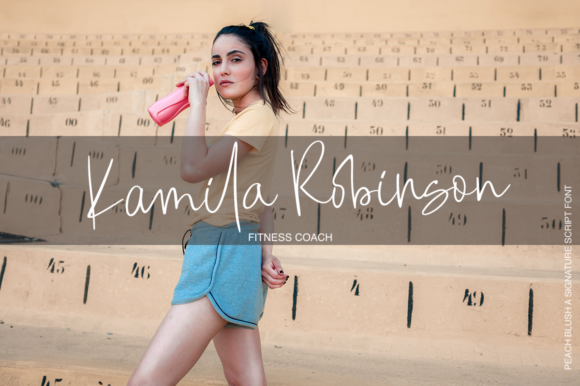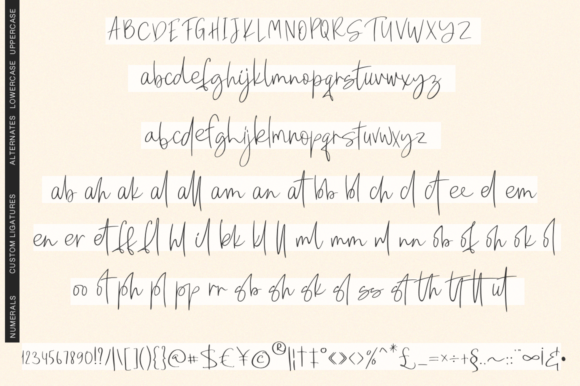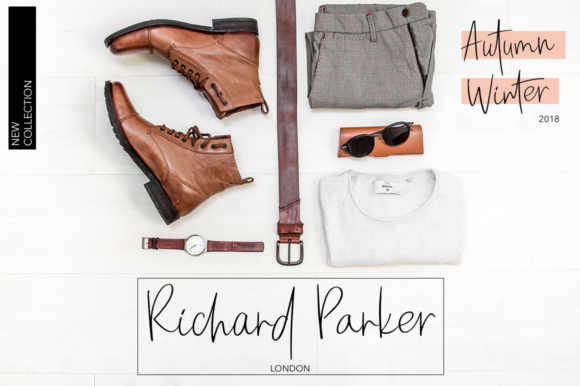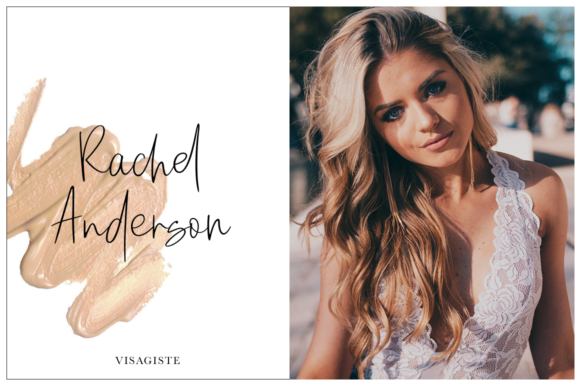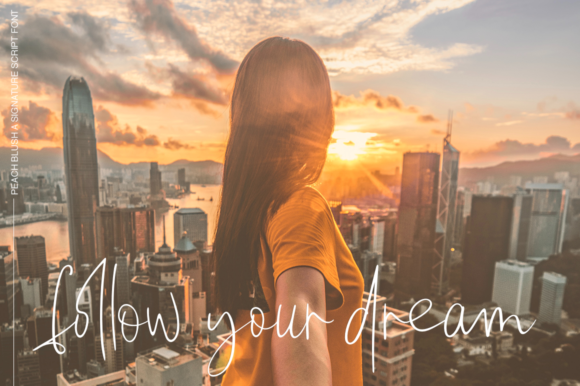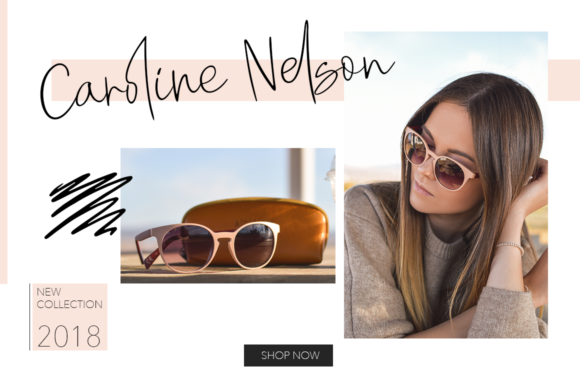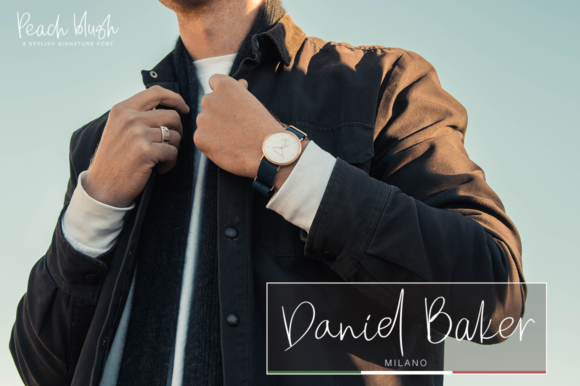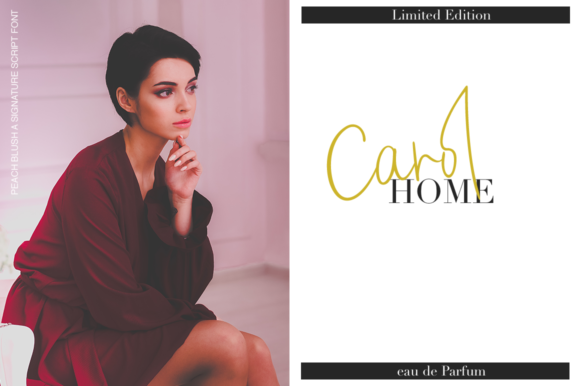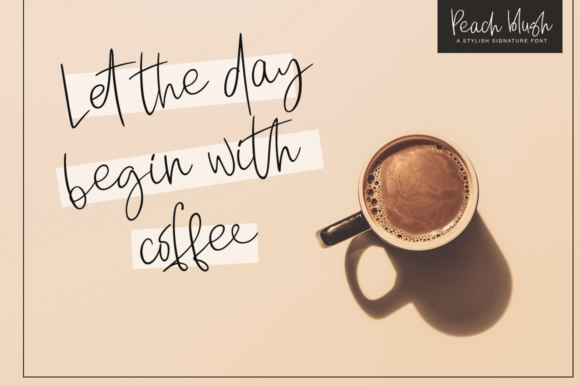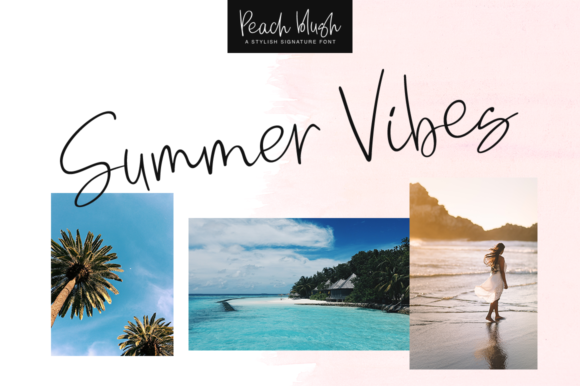
Peach Blush Font
About Peach Blush Font
The Peach blush is ideal for branding and decorating your projects. It’s a stylish signature font which makes it perfect for wedding invitations, blogs, logos or just as a beautiful frame for your home.